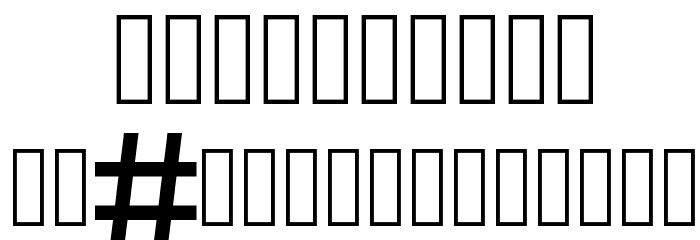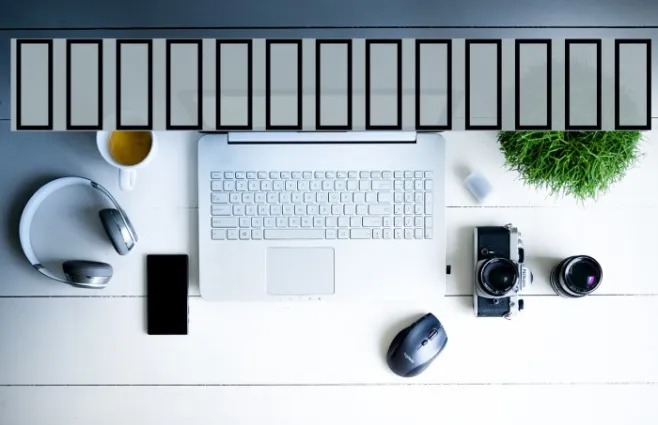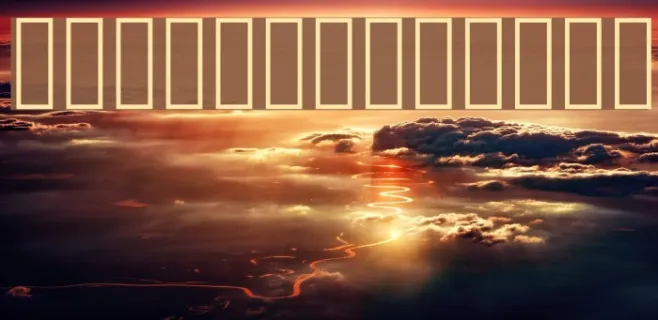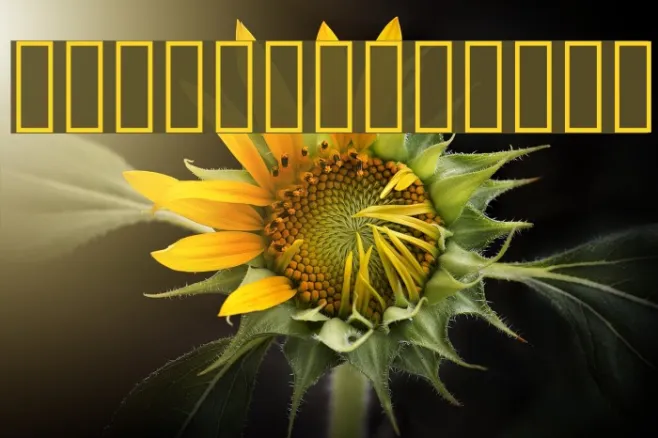
Untitled1 Font
This font features a bold, geometric design with a strong emphasis on uniformity and structure. Each character is enclosed within a square, giving it a distinct and modern appearance. The lines are thick and consistent, creating a sense of stability and balance. The font is highly legible, making it suitable for various applications where clarity is essential. Its unique style is both eye-catching and functional, ideal for making a statement in design projects.
A bold, geometric font with enclosed characters and strong uniformity.
- Proposed Projects: Ideal for modern branding, posters, digital interfaces, and signage where a bold statement is needed.